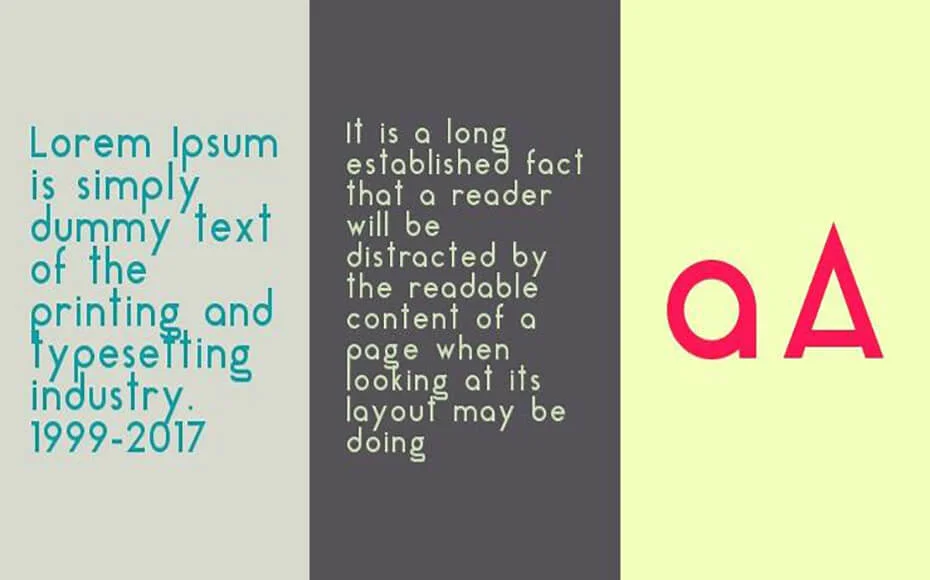
Aqua Grotesque Font is a modern round sans serif typeface that brings positivity and fun life to what you are saying. This font includes capitals, lowercase, numbers, and symbols.
The rounded flow of the font makes it more creative in the sans-serif field. Due to its very different features and texturing look, it has made a big difference between simple and geometric sans serif typefaces.
It has a texture designed with round as well as regular strokes. This is why the space between letters feels a little larger than the standard size.
This beautiful typeface is created with a decent rounded flow which adds extra to the entire typeface by the designer.
This amazing typeface comes in a regular style with Truetype features. This unique style has over 100 characters including uppercase, lowercase, and symbols.
These fonts due to their clean and attractive textures and glyphs, It is very suitable for headlines and titles.